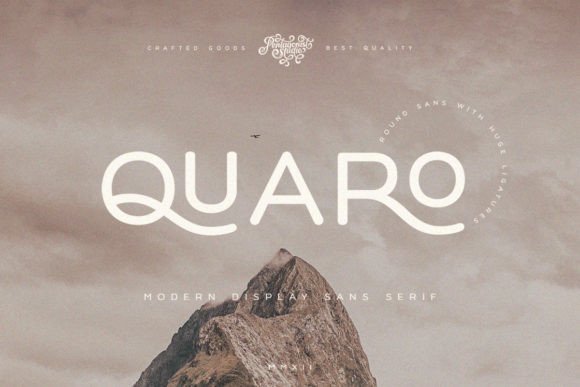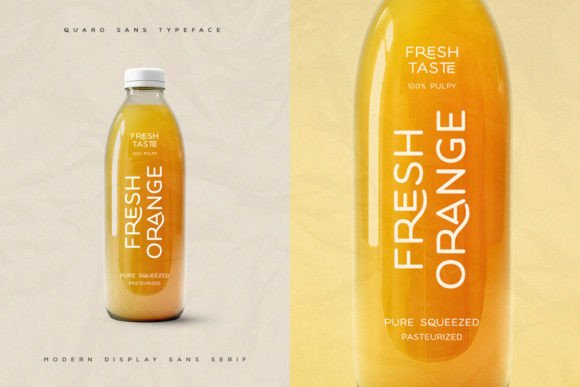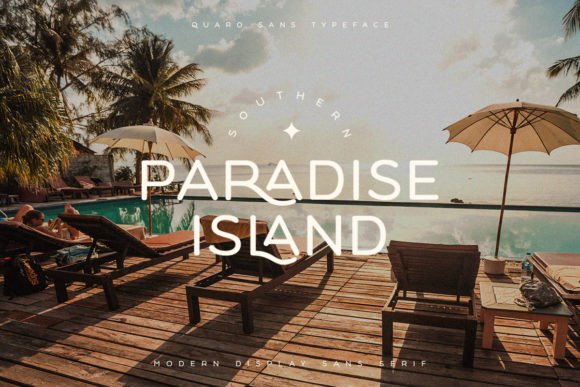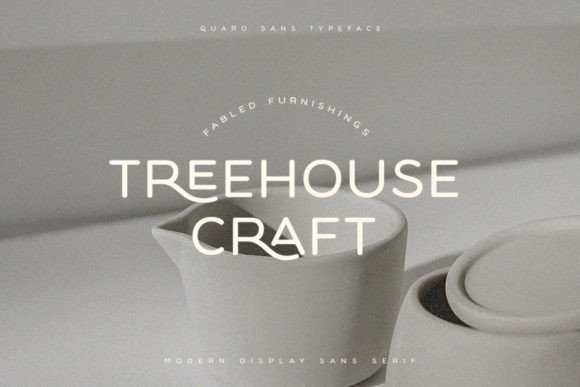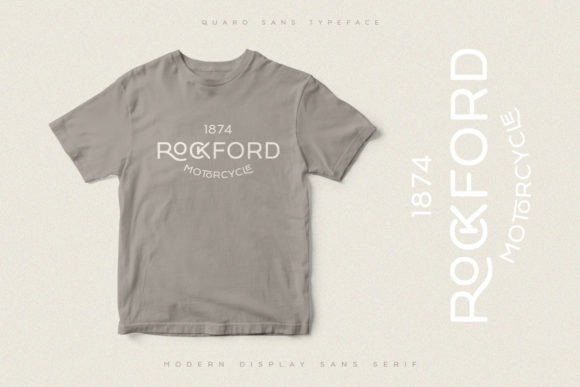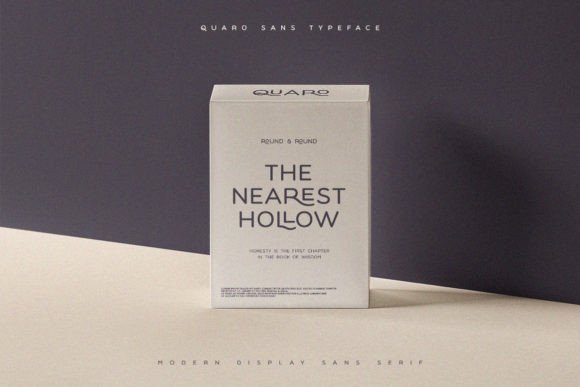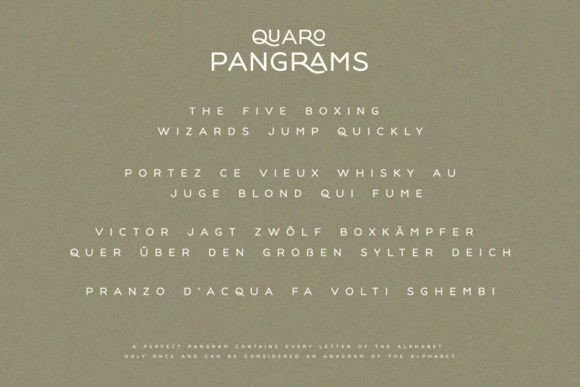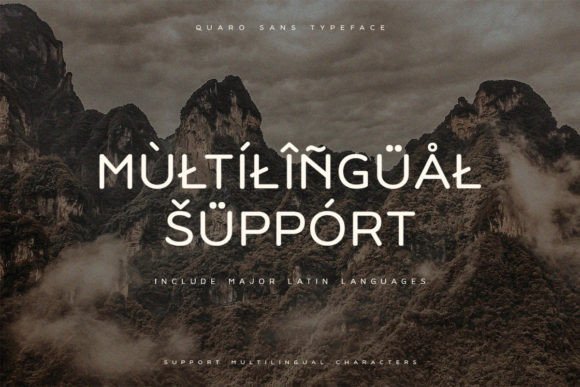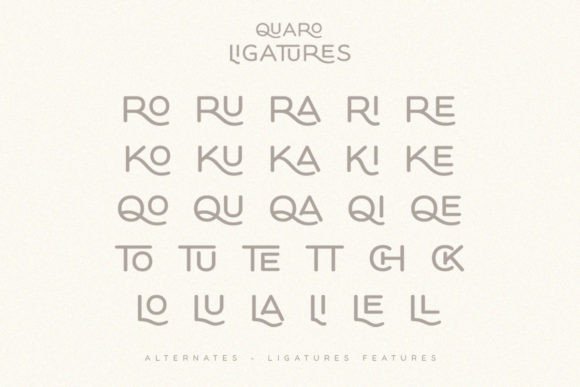
Quaro Font
Quaro is a stylish and modern sans serif display font. Contemporary and fresh, it is perfect for any design you wish to create. Add it to your creative projects and make them outstanding!